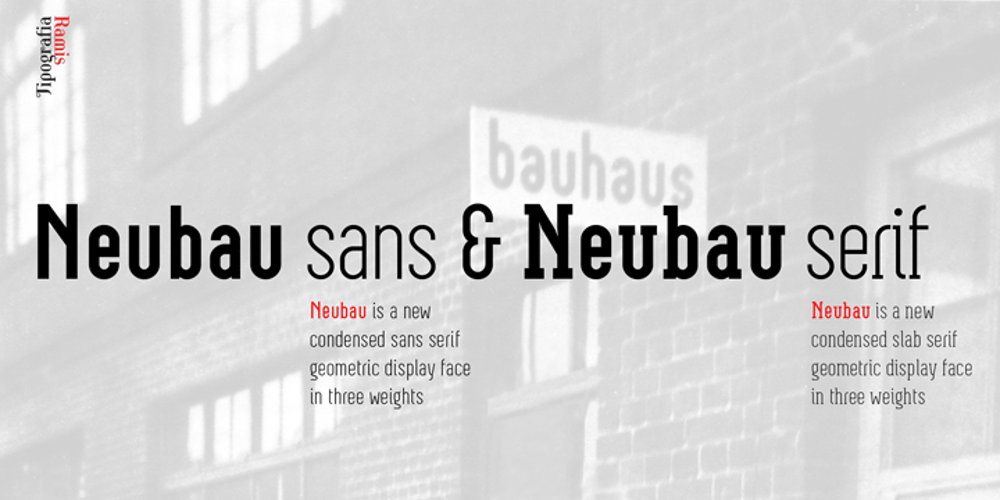
Neubau
Neubau font
Neubau Font Family was designed by Ramiz Guseynov and published by TipografiaRamis. Neubau contains 6 styles and family package options. Neubau is a condensed geometric display typeface, designed in 2009. The inspiration for this face came from Joost Schmidt lowercase letters developed during 1925-28 in Bauhaus Dessau. Schmidt was one of the proponents of New Typography – a movement advocating the use of only lowercase letters which were constructed strictly geometrically using only ruler and compass. Neubau family consists of two subfamilies – Neubau Sans and Neubau Serif, each of them in three weights – light, regular and bold. Neubau typeface is recommended for use as a display font, and has been generated in a single OpenType format with Western CP1252 character set.